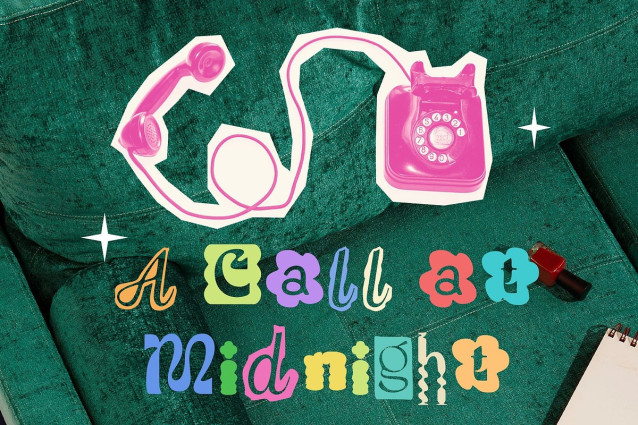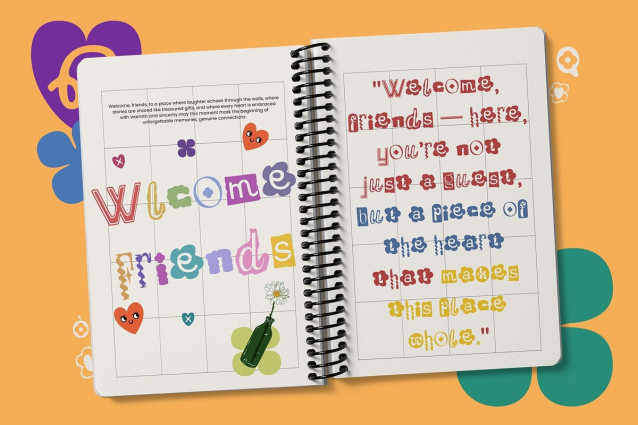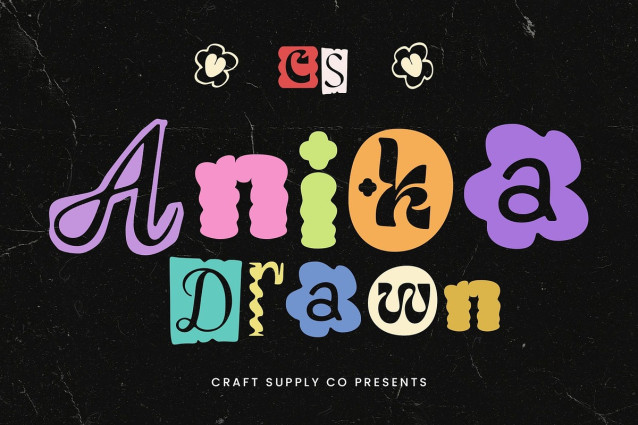
CS Anika Drawn Font
CS Anika Drawn Font is a display font that embraces chaos with style. Inspired by the art of physical collage, each letter looks like it’s been cut from a different source—random, mismatched, yet visually cohesive. This mix-and-match approach brings a playful yet radical tone, perfect for designs that reject uniformity and embrace visual experimentation.
Hand-Drawn Texture for a Raw and Tactile Feel What sets CS Anika Drawn apart is its bold, sketchy texture. Layered with a hand-drawn effect, it evokes the feel of handmade zines, DIY posters, and underground art. The rough lines and irregular strokes give the font an organic, imperfect charm that amplifies its rebellious nature.
Ideal for Bold, Artistic, and Alternative Visuals This typeface thrives in designs that challenge the status quo. Its unpredictable style speaks to creative freedom and self-expression.
Disruptive Energy Meets Unique Character CS Anika Drawn is not meant to whisper—it’s meant to shout. It’s designed for creators who want their work to stand out, make a statement, and carry an unmistakable identity. Perfect for album covers, collage art, visual journals, and expressive editorials, it’s a font that dares to be different, one jagged letter at a time.